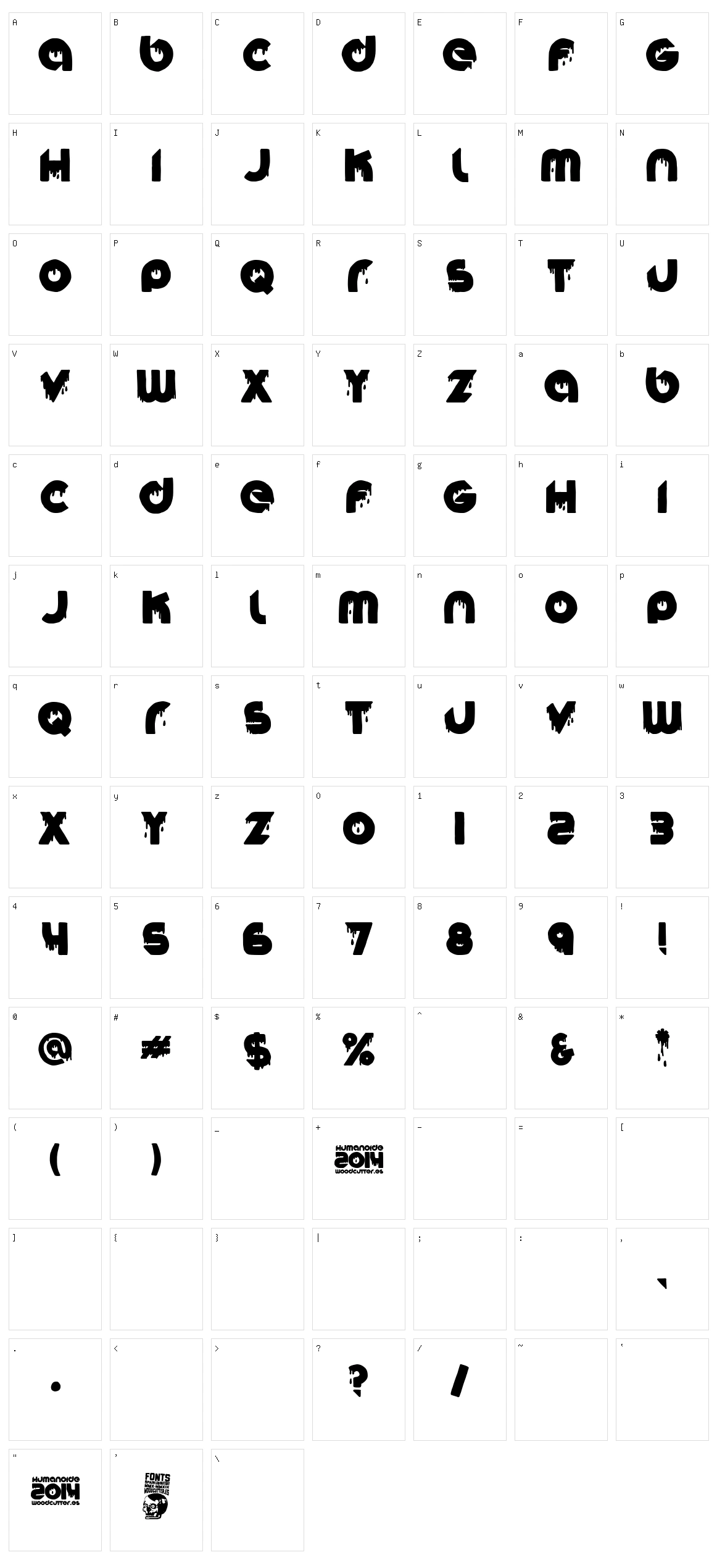
The free font Humanoide 2014 is carefully designed by Woodcutter, showcasing a thoughtful balance of creativity and usability and falls under the Cartoon font style. When you download the ZIP file, it contains only 68.72 KB of font files, making it lightweight and quick to download. Please review the license details below to understand permitted usage and distribution rights. If license information is not available, we recommend using this font for personal projects only or contacting the author directly for commercial usage permissions.